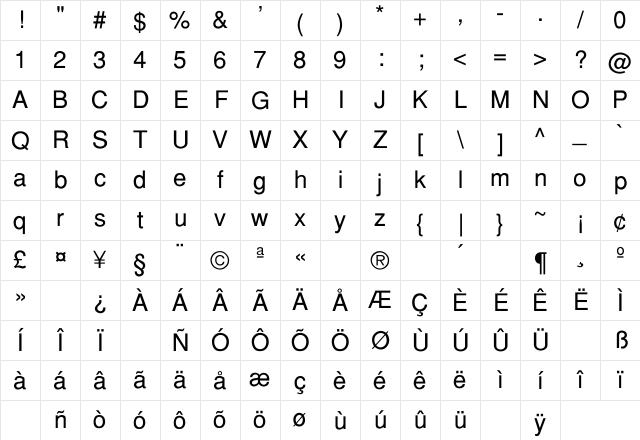
Holland Thin Regular
Design Context for Holland Thin
Holland Thin is a composed and adaptable typeface that performs quietly and consistently across a wide range of design contexts. Its slender proportions lend an understated elegance to any composition.
Pro Tip: Use Holland Thin in both headline and body roles to test its range before committing to a single application.